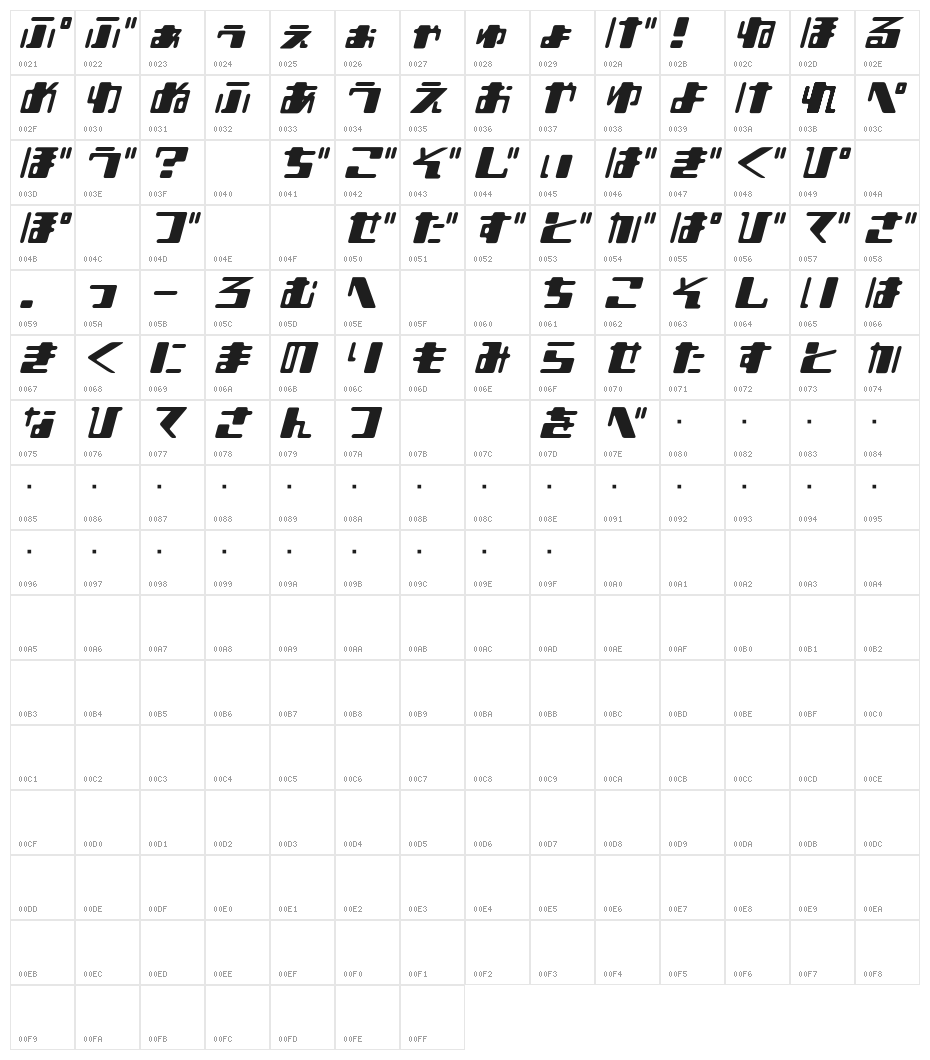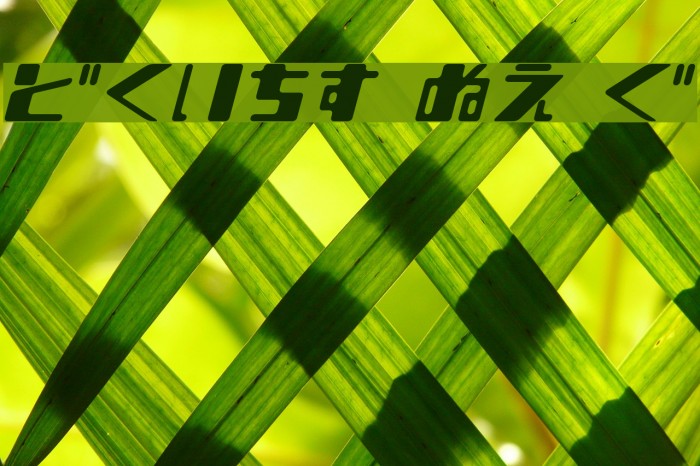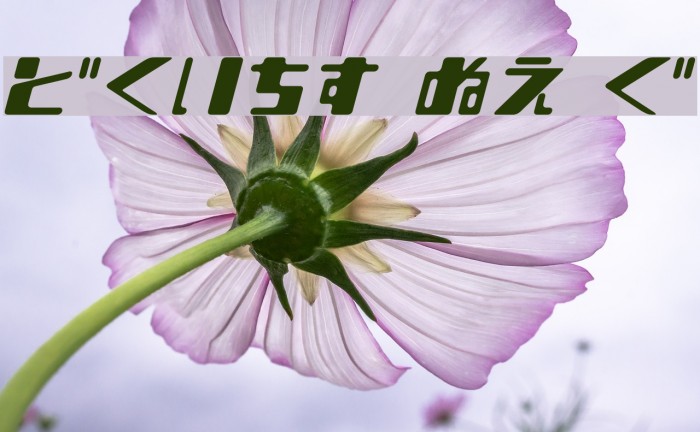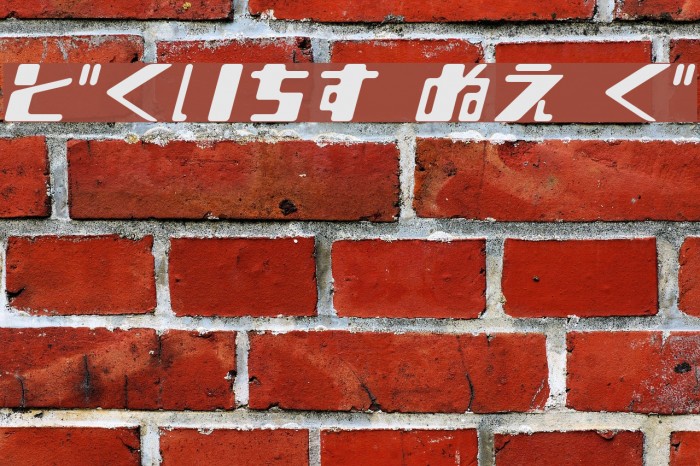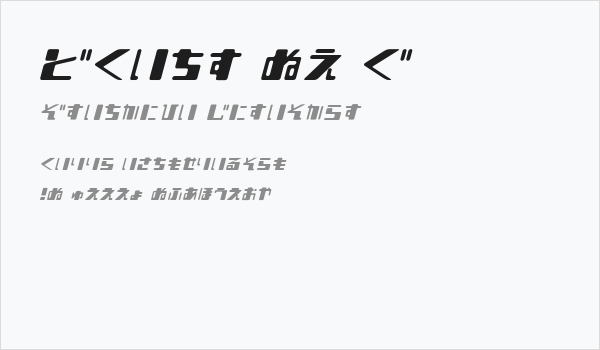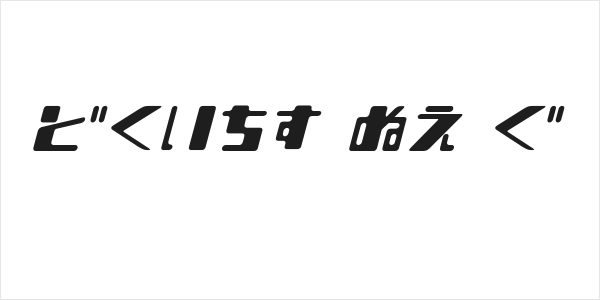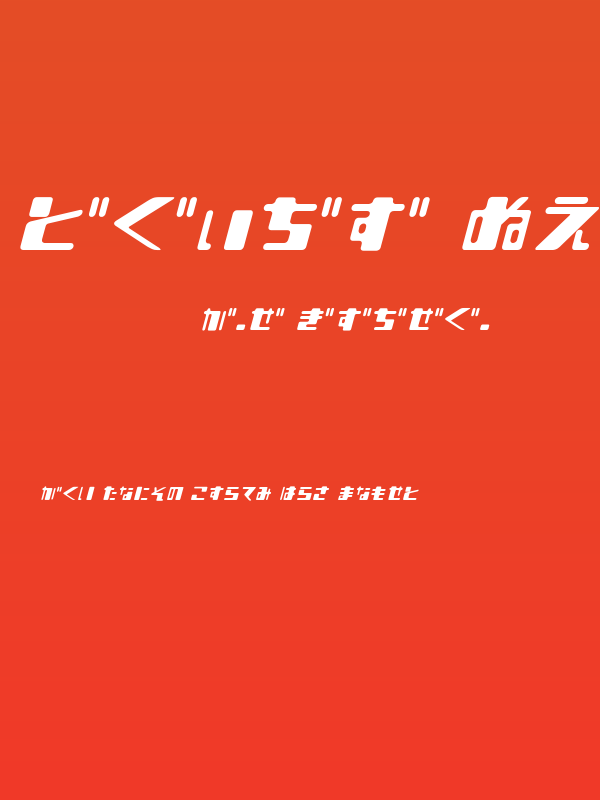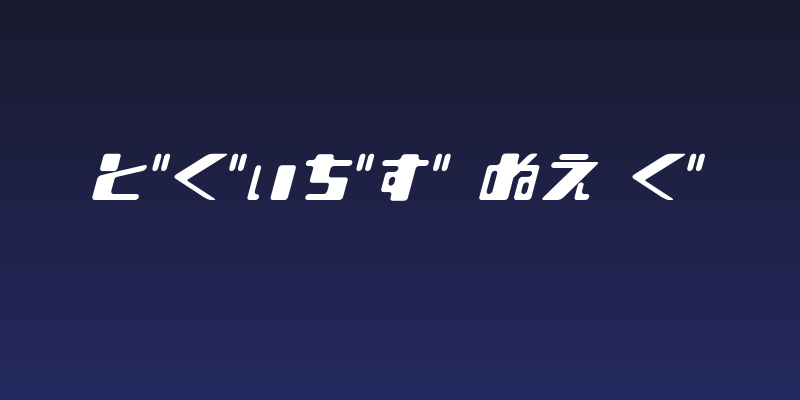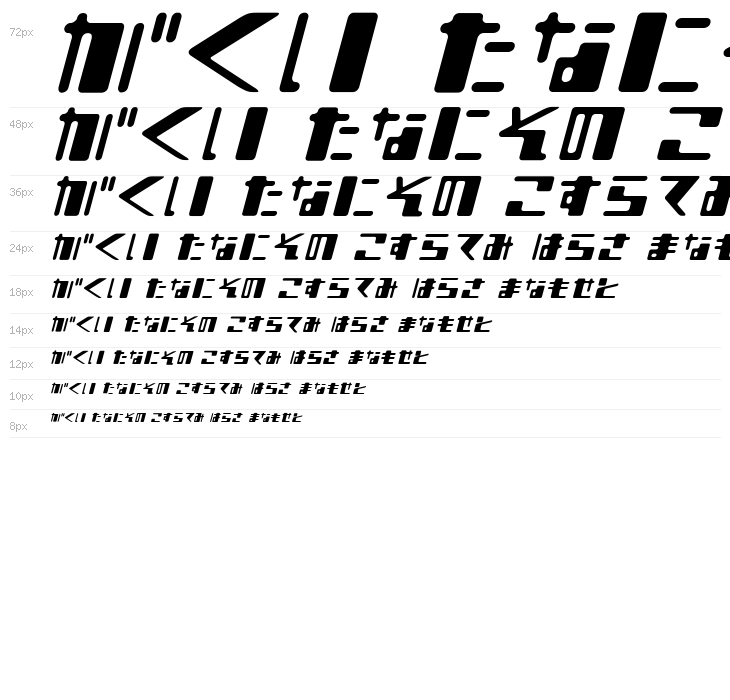
Shear 15_H Font
Shear 15_H Description
This font features a bold and dynamic style with a strong presence. The characters are slightly slanted, giving a sense of movement and energy. The strokes are thick and consistent, providing a robust appearance. The overall design is modern and eye-catching, suitable for making a statement. The characters are well-spaced, ensuring readability while maintaining a compact form. This font is ideal for projects that require a bold and impactful look, such as headlines, posters, and branding materials.
| Proposed Projects | Perfect for headlines, posters, branding, and any project needing a strong visual impact. |